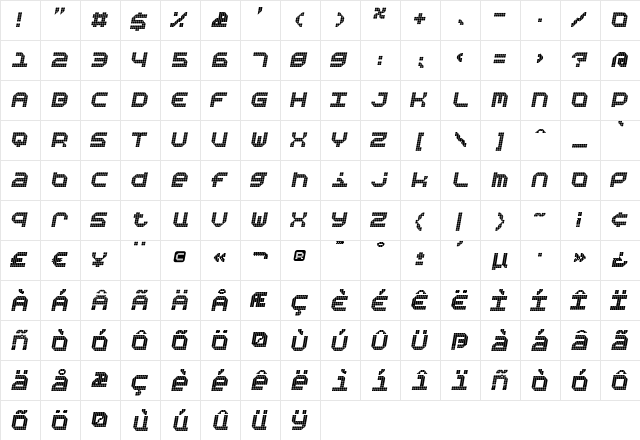
Bpositive Medium Italic
Design Context for Bpositive Typeface
Bpositive is a composed and adaptable typeface that performs quietly and consistently across a wide range of design contexts. The dynamic lean of this cut emphasises speed and emphasis in any layout.
Pro Tip: Use Bpositive for emphasis, pull quotes, and subheadings where its slanted energy can add rhythm to the layout.